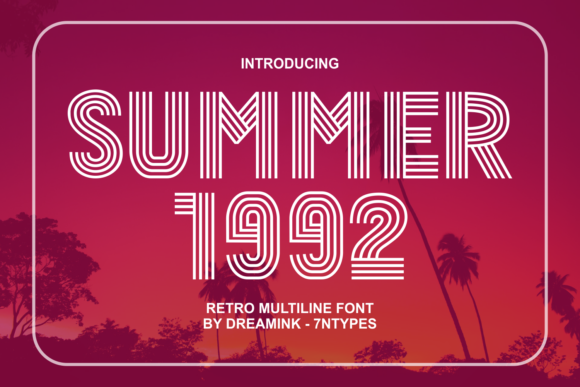
Introducing Summer 1992 Font, the ultimate solution for those looking for the perfect decorative font to create striking and eye-catching designs. Developed by the talented team at Dreamink (7ntypes), this font is a true masterpiece that is sure to leave a lasting impression on anyone who uses it.
Summer 1992 is not just any font. It is the Best Font For Lettering Tattoo, boasting a unique and trendy design that is perfect for creating beautiful and intricate lettering designs. Whether you are a professional designer, a tattoo artist, or just looking to spice up your personal projects, Summer 1992 is the font for you.
With its cool and retro style, Summer 1992 is incredibly versatile and can be used to create a wide range of designs. From vintage logos to modern posters, this font is guaranteed to make your creations stand out from the crowd. And with its keyword-rich features, Summer 1992 is sure to attract a large audience of potential buyers who are looking for the perfect font to take their designs to the next level.